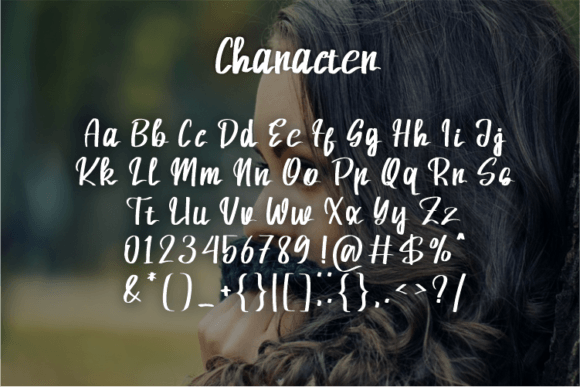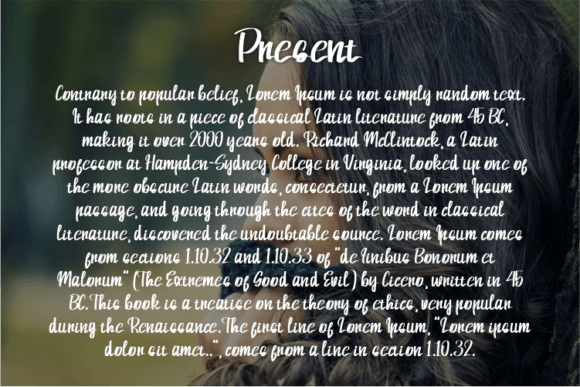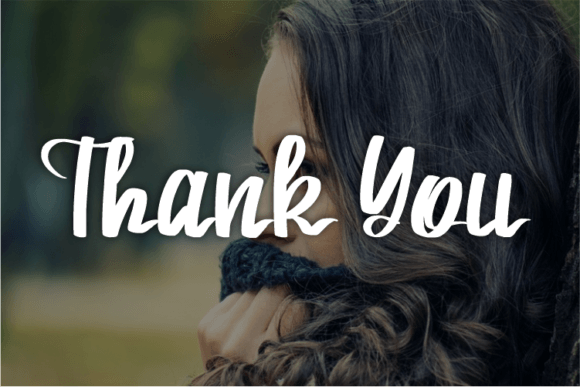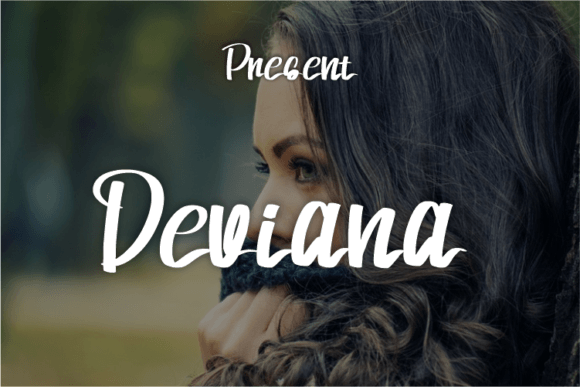
Introducing Deviana Font: Elevate Your Designs with Elegance and Sophistication
In the world of typography, fonts play a crucial role in conveying the tone and personality of a brand, product, or creative project. For designers and crafters seeking a typeface that exudes elegance, luxury, and modernity, Deviana Font is an exceptional choice. This script typeface boasts a simple yet sophisticated style, making it perfect for a wide range of applications, from logos and titles to fashion branding and editorial design.
What is Deviana Font?
Deviana is a beautifully crafted script typeface characterized by its clean lines, flowing curves, and contemporary aesthetic. Its simple style belies a deep sense of sophistication, allowing it to bring a touch of luxury to any design project. Whether you’re looking to create a stunning logo, an eye-catching book or movie title, or a stylish fashion brand identity, Deviana Font is up to the task.
Key Features of Deviana Font
- Simple yet Elegant: Deviana’s minimalist approach to script typography makes it both versatile and stylish.
- Modern Look: Its contemporary design ensures that your projects stand out with a fresh and current feel.
- High Versatility: Suitable for a wide range of applications, including logos, titles, fashion brands, magazines, clothing, and quotes.
- Luxurious Feel: Adds a touch of sophistication and elegance to any design, perfect for high-end brands and projects.
Use Cases for Deviana Font
Deviana Font’s versatility is one of its standout features. Here are some of the many ways you can use this elegant typeface:
Logo Design
For businesses aiming to establish a luxurious or elegant brand identity, Deviana can help create a memorable logo that communicates sophistication and style.
Book and Movie Titles
Make a lasting impression with your book or movie titles. Deviana’s modern and elegant look is perfect for cover designs that need to stand out.
Fashion Brands
Fashion brands often require typography that is both stylish and luxurious. Deviana Font fits the bill, adding a high-end feel to clothing lines, brand names, and marketing materials.
Magazines and Editorial Design
Elevate your magazine or editorial content with Deviana’s elegant script. It’s ideal for headings, titles, and quotes that need to convey a sense of sophistication.
Clothing and Apparel
From t-shirt designs to high-fashion catalogs, Deviana Font can add a touch of class and elegance to your clothing and apparel designs.
Quotes and Typography Art
Deviana’s beautiful script makes it an excellent choice for typography art, especially for quotes and phrases that require a stylish presentation.
Why Choose Deviana Font?
In a sea of typefaces, Deviana stands out for its unique blend of simplicity, elegance, and modernity. Here are a few reasons why designers and crafters are drawn to this font:
- Unique Style: Deviana offers a distinctive look that can set your designs apart from the competition.
- Ease of Use: Its simple style makes it easy to work with, even for intricate designs and detailed projects.
Deviana Font is a versatile and stylish script typeface that can elevate your designs with its elegant and modern look. Whether you’re a designer working on a client’s project or a crafter looking for the perfect font for your DIY endeavors, Deviana offers the perfect blend of simplicity, luxury, and sophistication. Explore the possibilities of Deviana Font today and discover how it can transform your creative projects into stunning works of art.